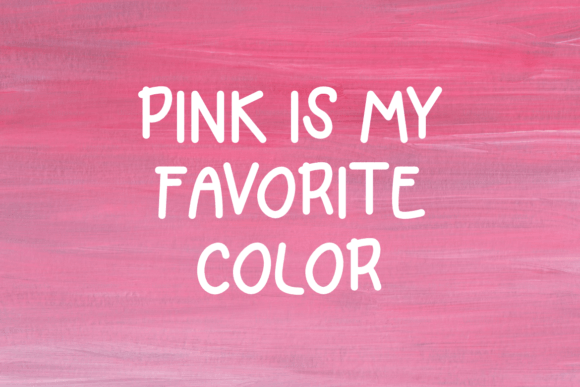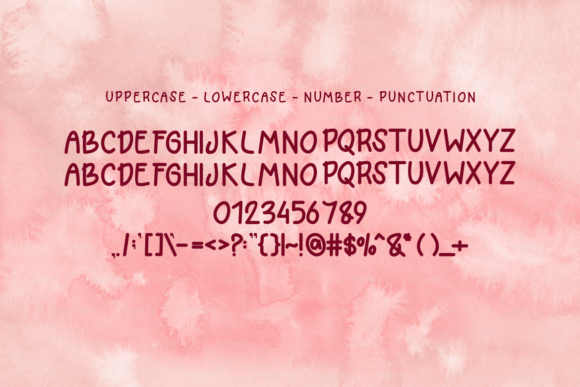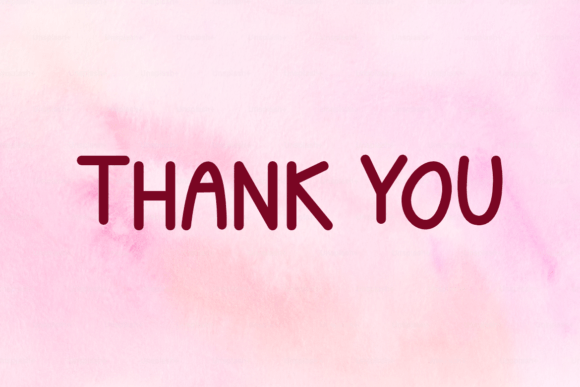
Introduction to Markunils Font
Imagine you’re brainstorming ideas for a new design project, and suddenly, the perfect font pops into your mind. For designers, finding that elusive font can be a game-changer. It’s the difference between a mediocre design and a masterpiece. And, we’re excited to introduce you to just that – the Markunils Font.
This modern font is not just any ordinary display font; it’s bold, authentic, and perfect for any branding project. From logos to t-shirt printing, and creative products in between, Markunils Font is the ultimate design resource. With its high-quality design and transparent background, it’s an excellent choice for designers looking for a versatile font that can elevate their creative project to the next level.
Key Features of Markunils Font
- High-quality design for creative projects, making it an ideal design resource for professionals and enthusiasts alike.
- Comes with a transparent background, allowing for seamless integration with any design or image.
- Features a unique and modern aesthetic, perfect for adding a touch of sophistication to any creative project.
Honest Review: Markunils Font
As a designer, I’m always on the lookout for high-quality design resources that can elevate my creative projects. Recently, I had the chance to try out the Markunils Font, and I must say, it’s a solid addition to my design arsenal.
- Beautifully crafted characters with a sleek, modern feel
- High-quality design that looks great on both light and dark backgrounds
- Transparent background option, which is perfect for creating visually appealing designs
- Not as extensive as some other font families in terms of character set and language support
- May not be suitable for very formal or professional projects, as it has a slightly playful feel
Overall, I’m impressed with the Markunils Font. It’s a great choice for designers looking for a high-quality, modern font that’s easy to use and won’t break the bank. While it may have some limitations, it’s a solid design resource that’s definitely worth considering for your next creative project.
The Markunils Font is perfect for:
- Business cards and stationery
Creative Projects with Markunils Font
Project 1: Abstract Typography
Create a visually striking piece of abstract typography using the Markunils Font. This high-quality font offers a transparent background, perfect for layering over images or colors.
Project 2: Minimalist Quote Graphic
Create a simple yet effective quote graphic using the Markunils Font. This free download is perfect for designers looking for a clean and modern design resource.